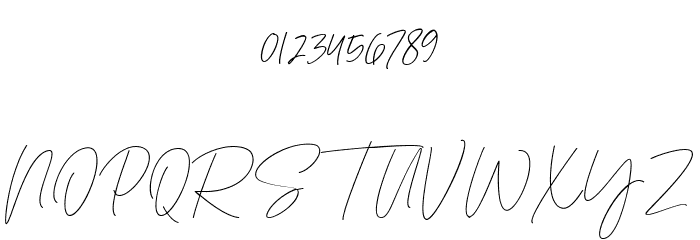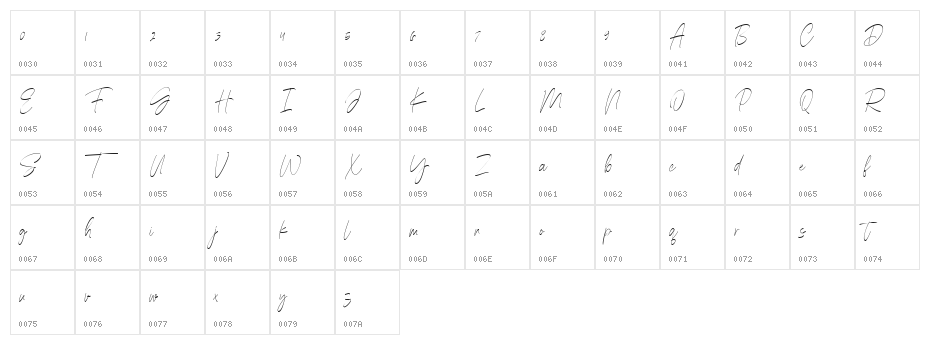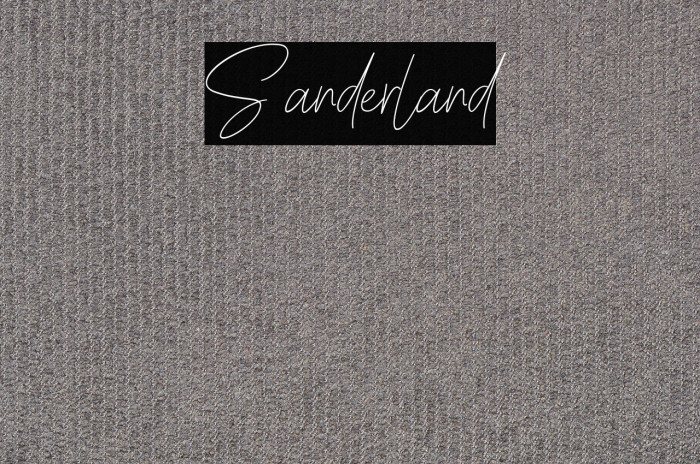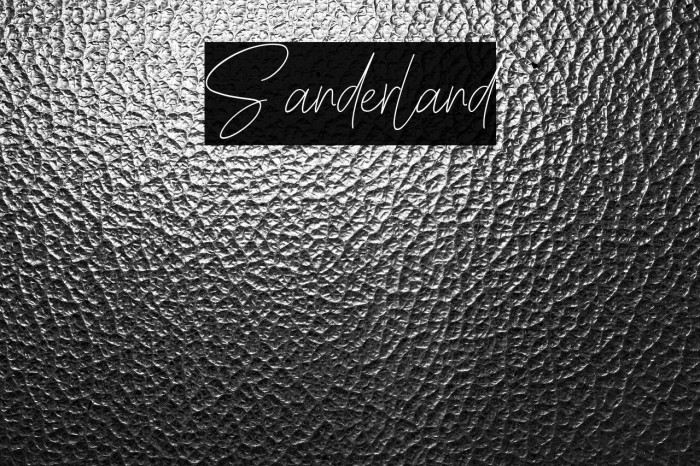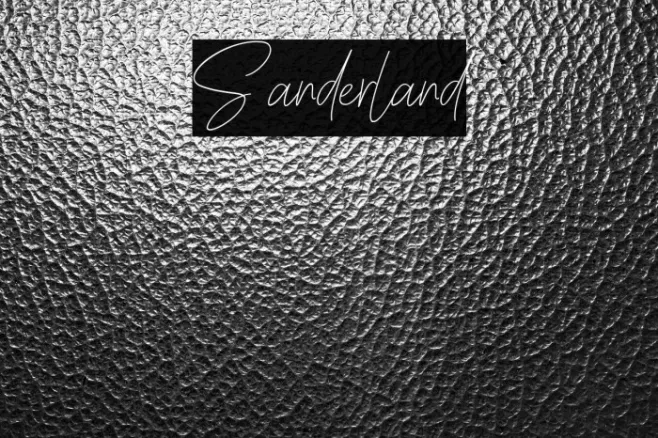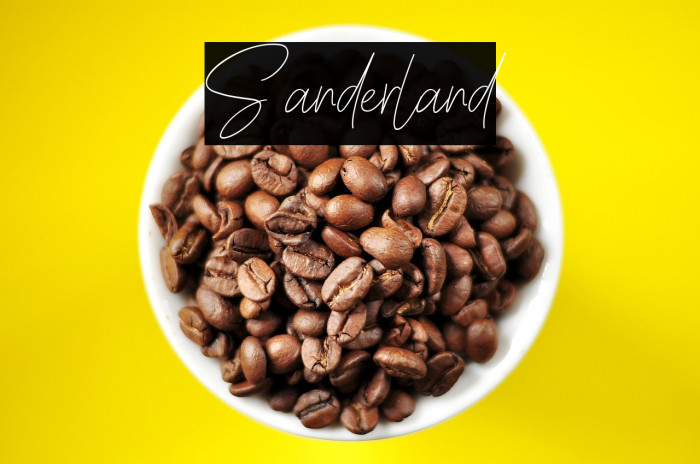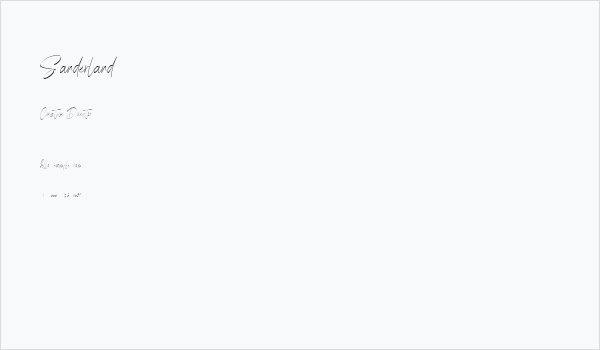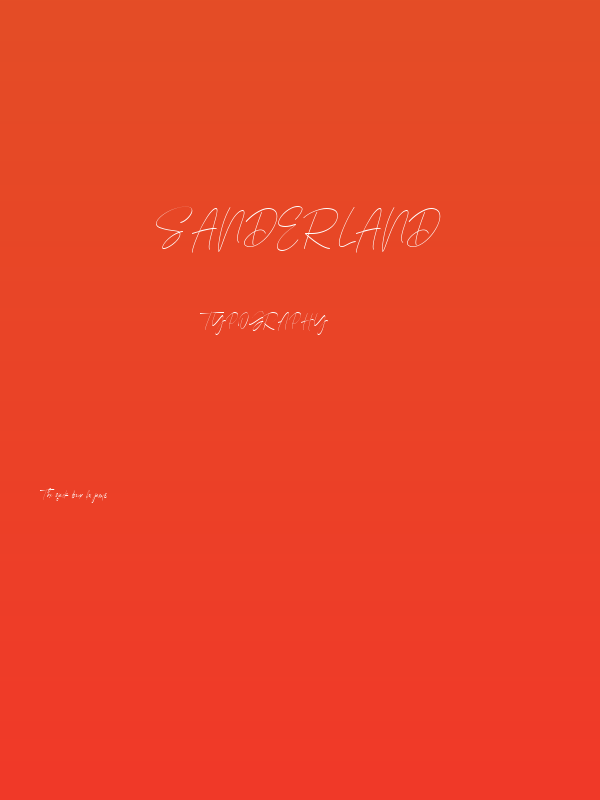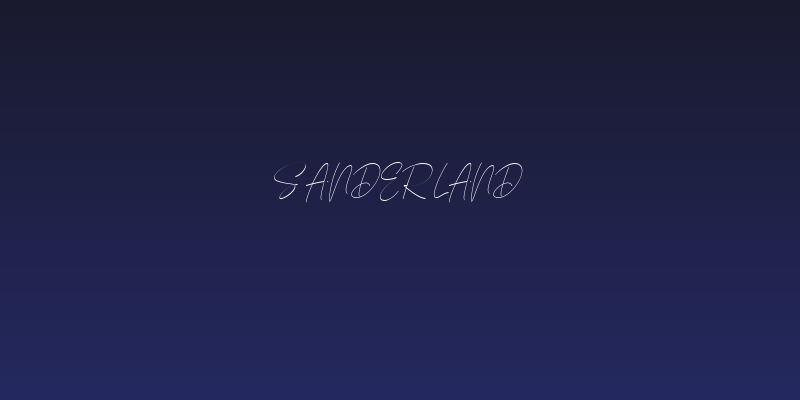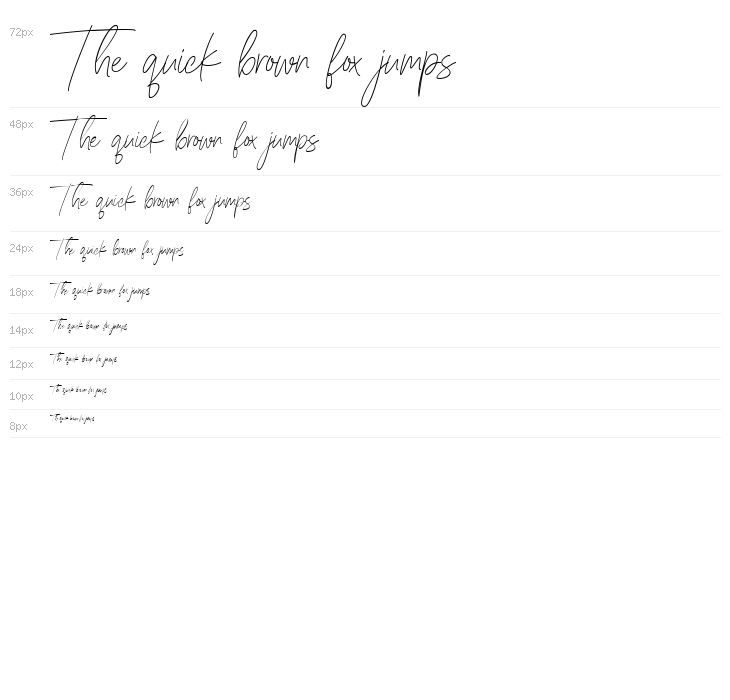
Sanderland Font
Sanderland Description
This font exudes a delicate and elegant handwritten style, characterized by its fluid and graceful strokes. The letters are connected in a cursive manner, giving it a seamless and flowing appearance. The thin lines and subtle curves create a sense of sophistication and charm, making it ideal for projects that require a personal and artistic touch. The font maintains a consistent slant, enhancing its handwritten aesthetic. It is well-suited for creative designs, invitations, and branding materials that aim to convey elegance and individuality.
| Overall Style | Elegant and Artistic |
| Use Case | Invitations, Branding, Artistic Projects |
| Proposed Projects | Ideal for wedding invitations, personal branding, artistic projects, and elegant stationery. |